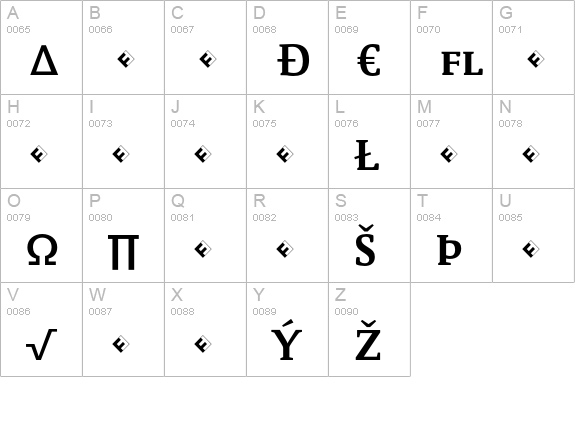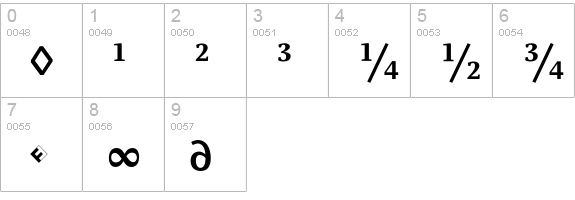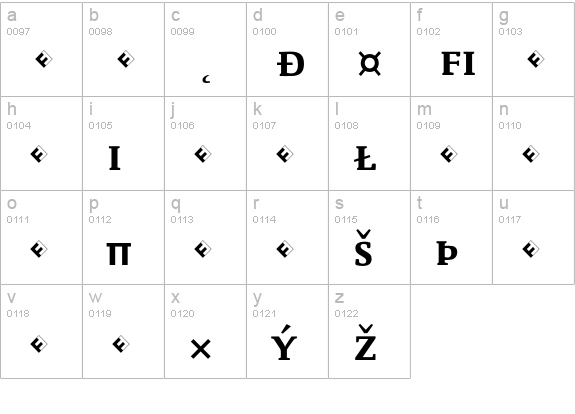
Parable-BoldSCExpert Font Details
Parable-BoldSCExpert font is a striking and bold typeface that exudes confidence and elegance. Its clean and precise lines make it perfect for creating standout designs that demand attention. With its expertly crafted small caps, this font delivers a sophisticated and refined look that is sure to make a lasting impression. What sets Parable-BoldSCExpert font apart is not only its exceptional design, but also the fact that it is freely available to download at FontsMarket.com. This means that designers, creatives, and anyone in need of a powerful and versatile font can access it without any cost. Whether you are working on a professional project or simply want to add a touch of sophistication to your personal designs, Parable-BoldSCExpert font is the perfect choice. The font's versatility allows it to be used in a variety of applications, from branding and logos to headlines and posters. Its bold presence on the page commands attention, while its sleek and modern design ensures legibility and readability. The small caps add an extra level of sophistication, allowing for creative typographic expressions. Parable-BoldSCExpert font is a true asset to any designer's toolkit. Its timeless appeal, combined with its free availability, makes it a must-have for anyone who values quality typography. So go ahead and download Parable-BoldSCExpert font from FontsMarket.com today and elevate your designs with this remarkable typeface.